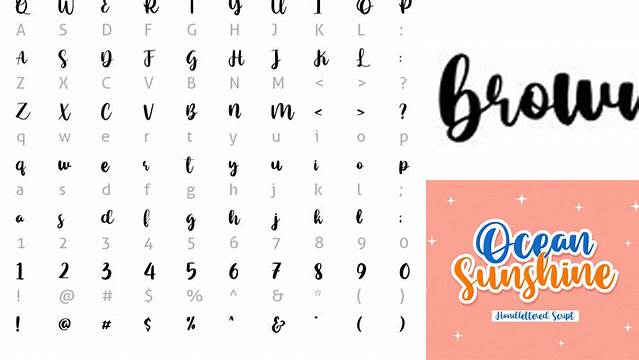
Ocean Sunshine Regular Font: Free Download Guide
Understanding the Appeal of Ocean Sunshine Regular Font
Hey everyone, let's dive into why the Ocean Sunshine Regular font is such a hot commodity in the design world. It’s not just about pretty letters, guys; it’s about the vibe a font can bring to your project. Ocean Sunshine Regular, with its breezy, relaxed feel, instantly evokes images of sunny days, calm waters, and a general sense of good times. Think about those seaside cafes, summer festival posters, or even just a friendly greeting card – this font just fits. Its design often features gentle curves and a welcoming openness, making it incredibly versatile for a range of applications. Whether you're a seasoned graphic designer looking to add a touch of warmth to your branding, or a budding enthusiast creating a personal blog, understanding the inherent qualities of Ocean Sunshine Regular is key to unlocking its full potential. Its readability, even at smaller sizes, ensures that your message comes across loud and clear, without sacrificing any of its inherent charm. The subtle uniqueness in its character shapes prevents it from feeling too generic, offering just enough personality to stand out from the crowd. This font isn't trying too hard; it's effortlessly cool, much like a perfect summer afternoon. We’ll explore why this specific font has garnered so much attention and how you can seamlessly integrate it into your creative toolkit. Its ability to convey a sense of ease and accessibility makes it a go-to for projects aiming for a friendly and approachable aesthetic. So, grab a virtual lemonade, and let's get into the nitty-gritty of why Ocean Sunshine Regular is more than just a font – it’s an experience.